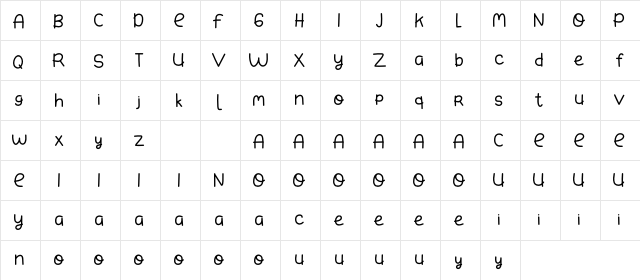
Small Bunny Regular
| Foundry | Illushvara Design |
| Designer | Bayu Suwirya |
Design Context for Small Bunny Typeface
Small Bunny is a composed and adaptable typeface that performs quietly and consistently across a wide range of design contexts.